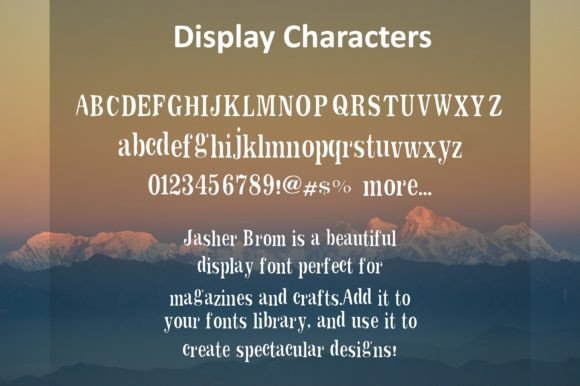
Introduction to Jasher Brom Font
Have you ever stumbled upon a font that perfectly captures the essence of your creative vision? For designers, finding that perfect font can be a game-changer. It’s like stumbling upon a hidden treasure that elevates your design from ordinary to extraordinary.
Today, we’re excited to introduce you to the Jasher Brom Font, a stunning display font that’s sure to take your designs to the next level. With its beautiful, high-quality design, this font is perfect for magazine layouts, craft projects, and any other creative endeavor where you want to make a statement.
What sets Jasher Brom Font apart is its versatility and the ease with which you can incorporate it into your design. Whether you’re working on a digital project or creating something physical, this font’s transparent background makes it a breeze to use. And the best part? You can download it for free, making it an invaluable resource for designers of all levels.
Key Features of Jasher Brom Font
- High-quality, unique design perfect for creative projects requiring a distinctive look.
- Comes in a transparent background format, allowing for seamless integration into various design elements.
- Unique characteristics: bold lines, intricate details, and a distressed look, making it ideal for vintage or retro-themed designs.
- Designed to be versatile, suitable for use in a variety of design contexts, from logos and branding to digital art and graphics.
Honest Review: Jasher Brom Font
I recently had the chance to work with the Jasher Brom Font, and I must say, it’s been a great addition to my design resource collection. The font is perfect for any creative project that requires a touch of elegance and sophistication.
- ✨ High-quality design that’s both modern and classic at the same time.
- ✨ Transparent background makes it easy to work with, even for designers who are new to font manipulation.
- ⚠️ The font is only available in a limited number of weights, which might not be suitable for projects that require a wide range of typography options.
- ⚠️ Some designers might find the font a bit too elegant for certain types of projects, such as tech-related designs.
Overall, I’m very impressed with the Jasher Brom Font. It’s a high-quality design resource that’s perfect for designers who want to add a touch of sophistication to their creative projects. With its transparent background and free download option, it’s an excellent choice for designers of all levels.
How to Use Jasher Brom Font
The Jasher Brom Font is a high-quality design resource that can elevate your creative project to the next level. With its unique style and transparent background, it’s perfect for designers looking for a versatile font to use in their projects.
Tips for Getting the Most Out of Jasher Brom Font
Here are a few tips to help you get the most out of the Jasher Brom Font:
- Experiment with different font sizes and styles to find the perfect combination for your design.
- Use the font in conjunction with other design elements, such as images and graphics, to create a visually appealing design.
The Jasher Brom Font is suitable for a wide range of design projects, including:
- Website design and development
Alternatives to Jasher Brom Font
Pacifico is a high-quality, elegant font ideal for creative projects that require a touch of sophistication. It features a beautiful, cursive design perfect for quotes, titles, or headings in your design resource. Pacifico’s smooth lines and transparent background make it a great alternative to Jasher Brom Font for designers who want a more refined look.
When to use: Pacifico is suitable for high-end designs, wedding invitations, and any project that demands a sense of luxury.
By incorporating the Jasher Brom Font into your design, you’ll be able to achieve professional-looking results with ease. Its versatility and high-quality design make it an ideal choice for a wide range of applications, from logos and branding to typography and visual identity. Don’t miss out on the opportunity to experience the full potential of this incredible font – download the Jasher Brom Font today and start creating something truly remarkable!